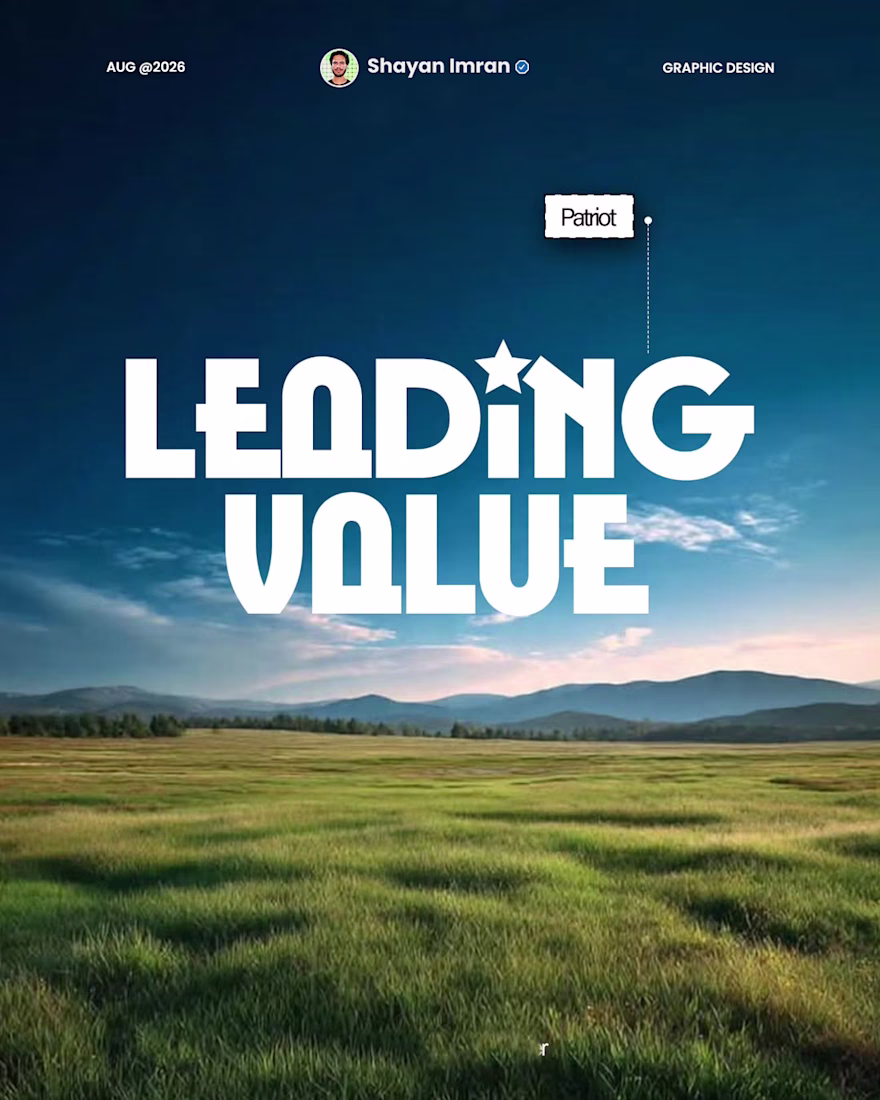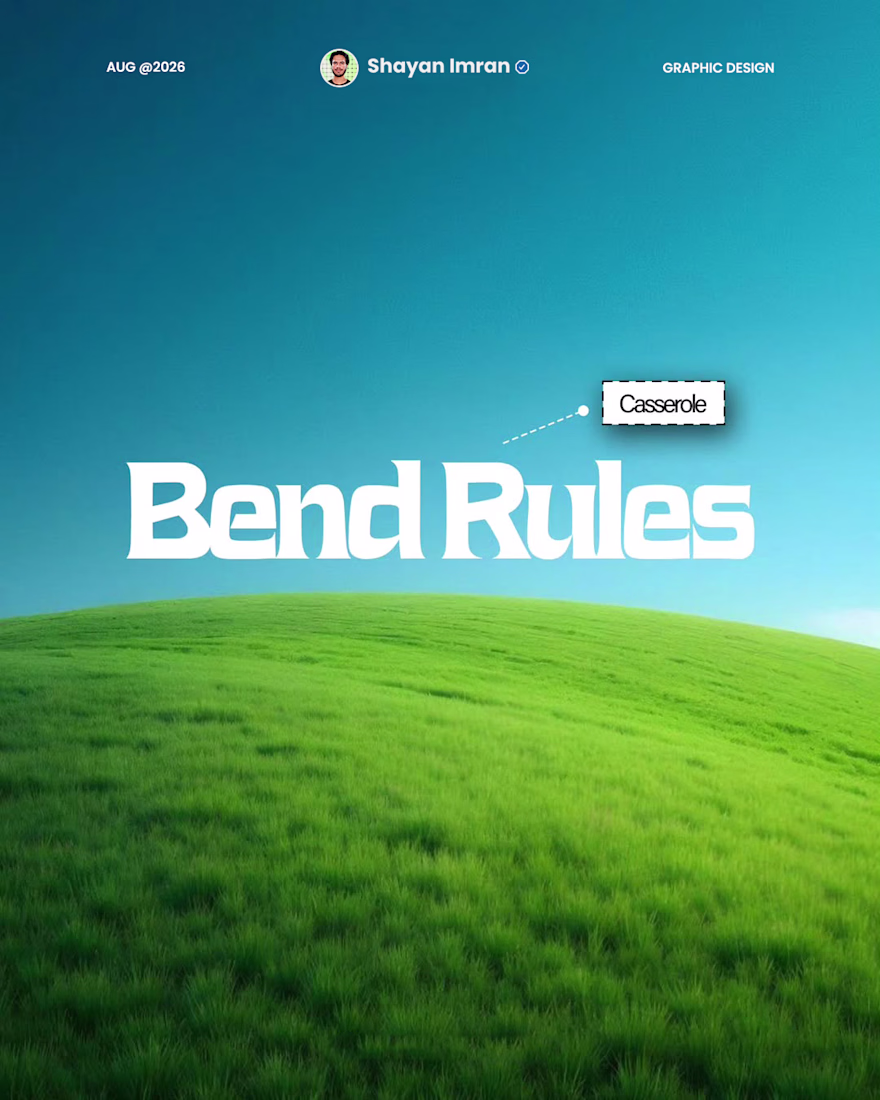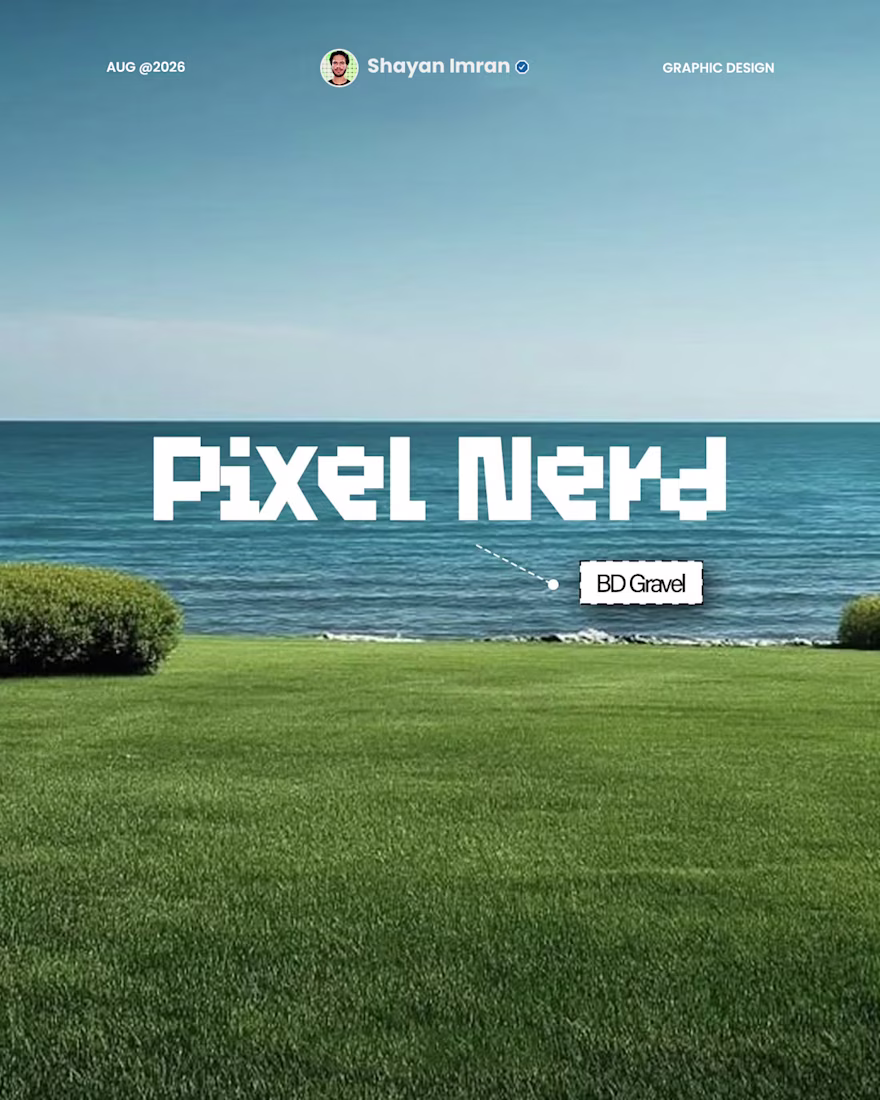
I’ve been saving fonts a lot lately.
Not because I need another 100 fonts sitting in my folder 😂
Some styles just keep showing up in designs, branding, posters, and social content — and I wanted to see which ones are actually worth paying attention to.
So I put together 5 font trends I’ve been seeing more and more lately.
Some are bold. Some are weird. Some probably won’t work for every project.
But that’s what makes them interesting.
I added a few examples in the carousel so you can see how each style feels in an actual design.
Which one is your favorite — 1, 2, 3, 4, or 5?